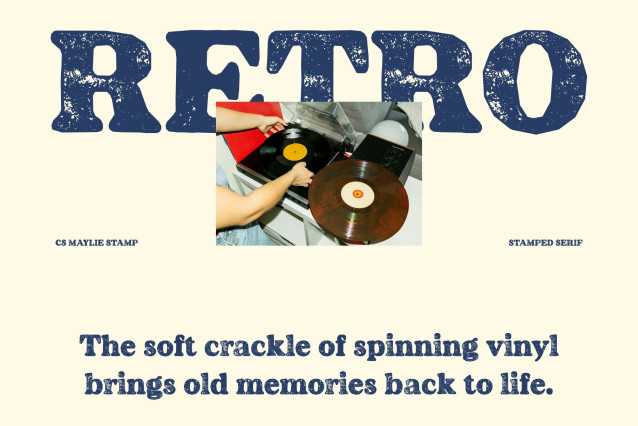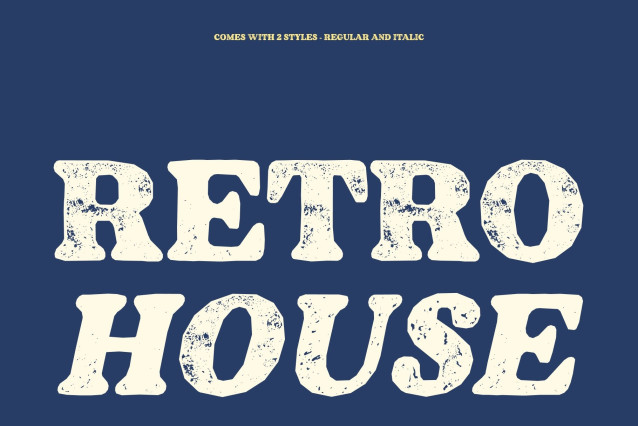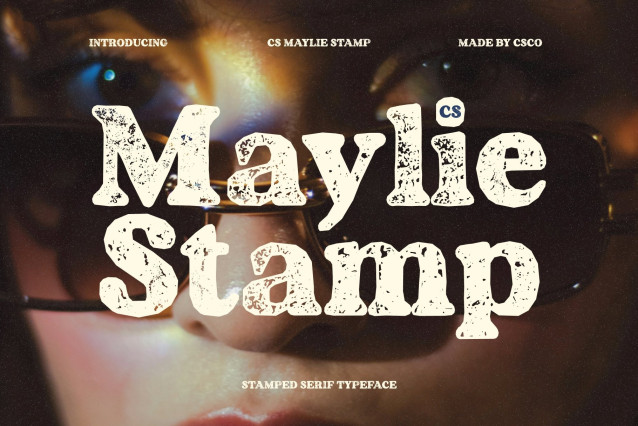
CS Maylie Stamp Font
CS Maylie Stamp – Retro Font with Bold Nostalgia
Retro-Inspired Bold Serif with Rounded Edges
This is a bold, rounded serif that blends classic typography with a playful 90s spirit. Thick letterforms and soft curved edges create a warm, approachable look, while the stamped texture introduces a handcrafted, vintage personality that feels expressive and full of life.
Playful, Cheerful, and Friendly Style
Its rounded strokes and retro proportions give the font a joyful and youthful energy. The stamp effect enhances this character with subtle imperfections and organic texture, making every letter feel lively, tactile, and full of personality.